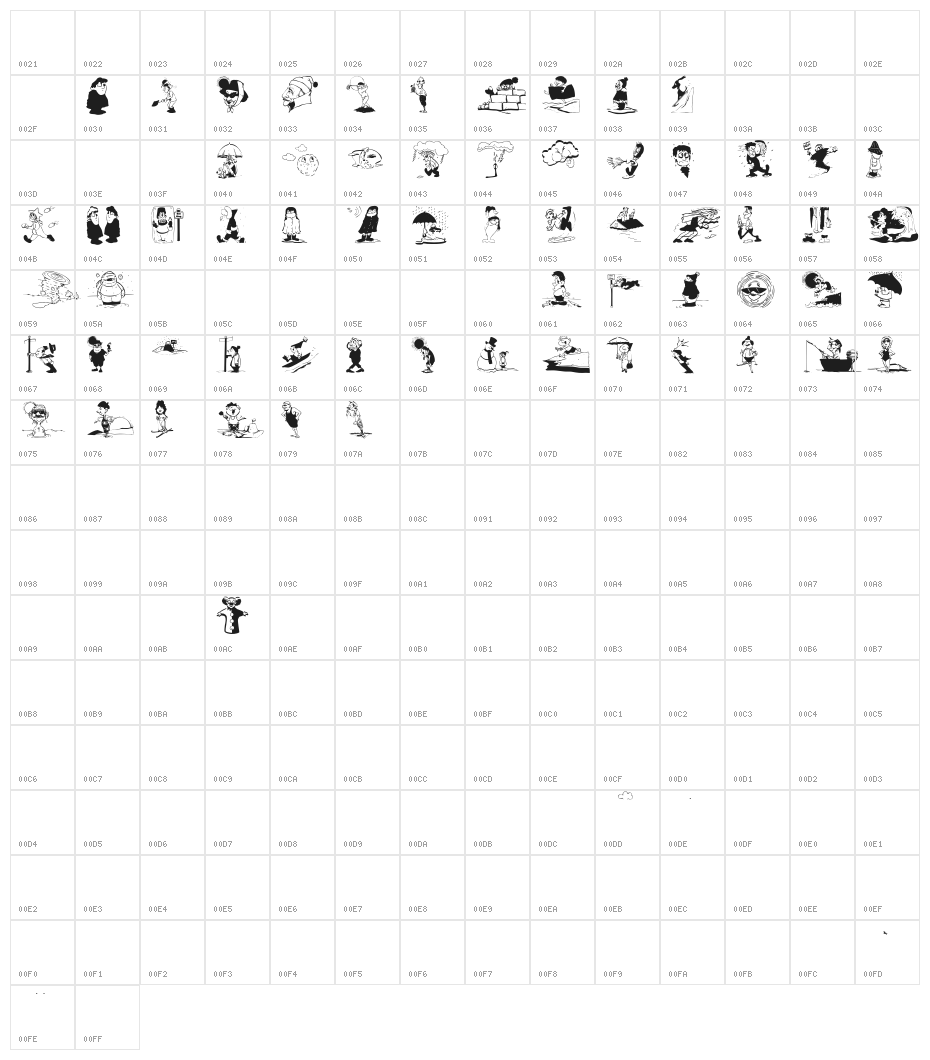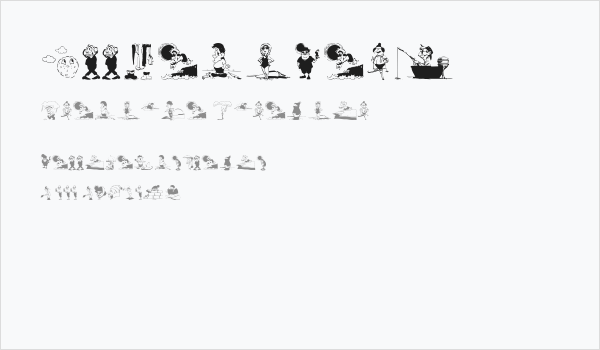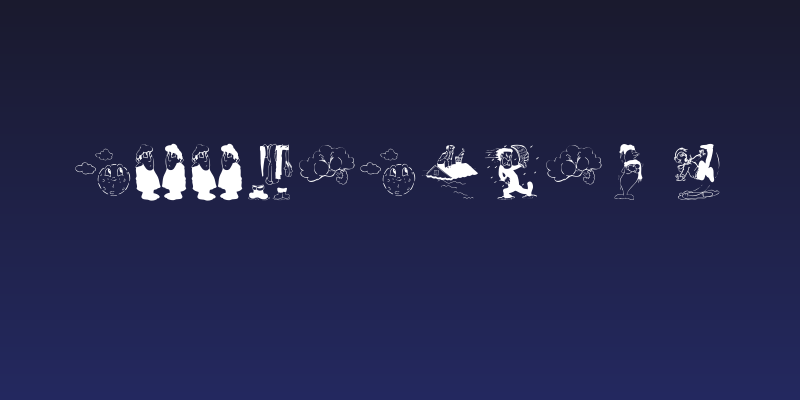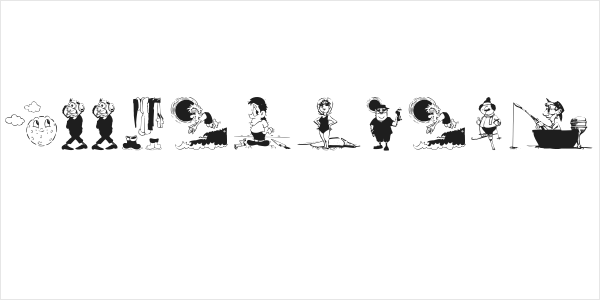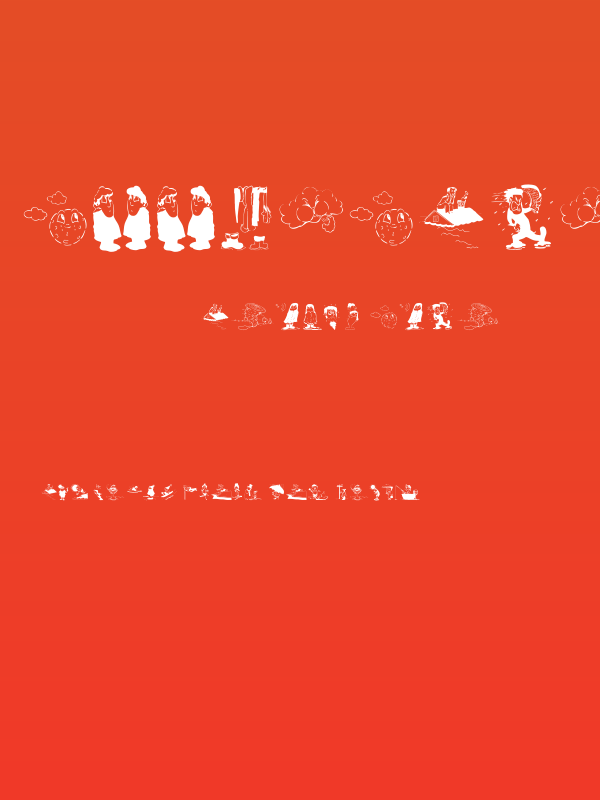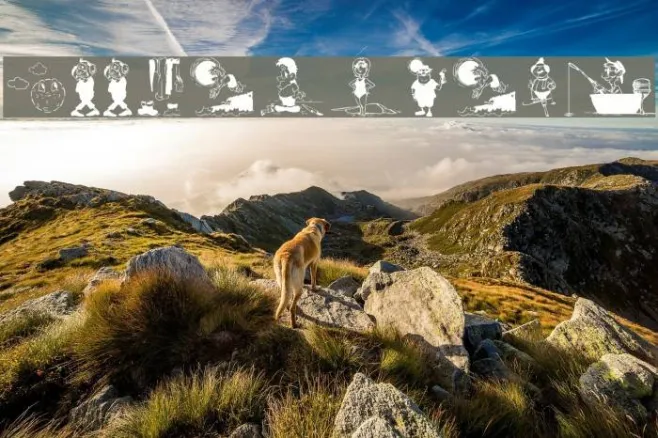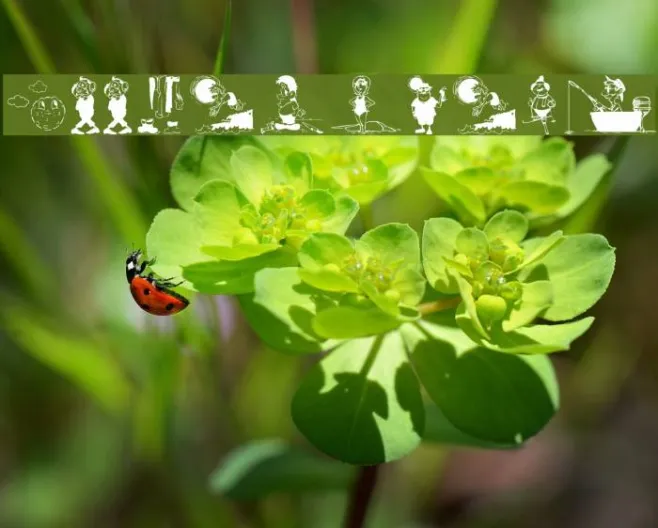
AllWeathers Font
AllWeathers Description
A decorative display set featuring whimsical cartoon illustrations of people and weather-related scenes, each character or scene representing a different letter, number, or symbol. The style is playful and hand-drawn, with varying line thickness and expressive, exaggerated features.
| Overall Style | Decorative, Whimsical, Playful |
| Use Case | Display, Themed illustrations, Educational visuals |
| Proposed Projects | Children’s books, educational materials, weather-themed posters, playful branding, greeting cards. |